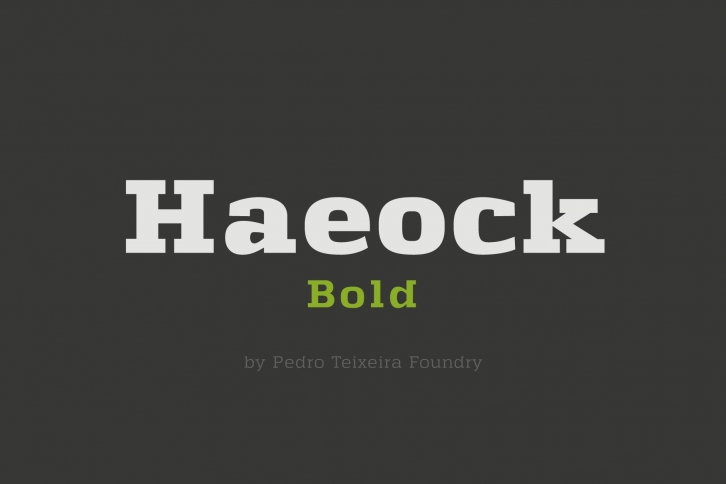
Haeock Bold is a great font that was designed by Pedro Alexandre Teixeira. Imagine the amount of combinations you can create using this font! The archive is 19.81 MB and it was released on February 9, 2021. Haeock Bold looks beautiful on wedding invitations, greeting cards, logos, posters, labels, t-shirt designs, logos, business cards and is perfect for use in ink or watercolor works, fashion, magazines, packaging and food menus, children's books and more!